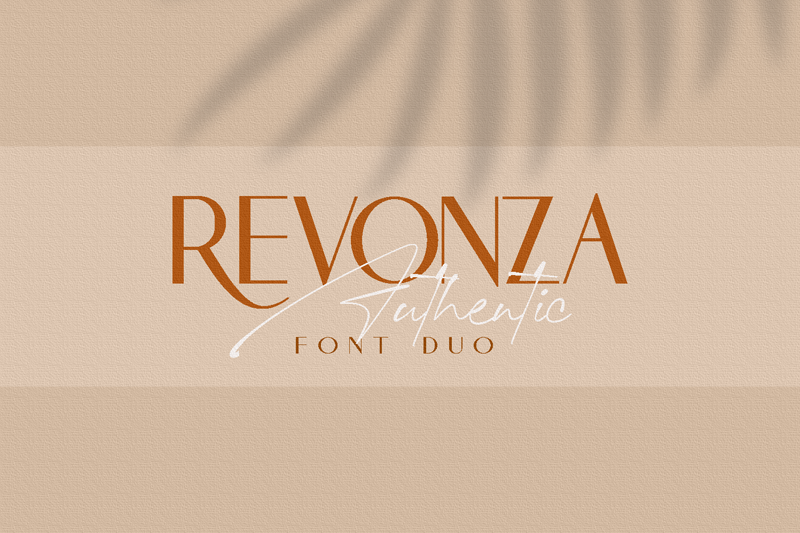
Preview and download Revonza Font. Created by XD Creative in Basic Sans serif styles with Free for personal use license.
Notes: This is free for personal use only, just Revonza Regular .ttf included, for full version and complete versions please visit link https://fontbundles.net/xdcreative/937584-revonza-sans-font-duo Revonza Authentic is a spectacular duo font (sans serif and script). Incredibly powerful and beautiful, this font fits a wide pool of designs, elevating them to the highest levels. Add this font to your favorite creative ideas and notice how it makes them come alive! REVONZA includes a complete characters ( Uppercase, lowercase, numeral, punctuation and alternates). ___________________________________________________________ You will receive 3 font file : REVONZA Regular Sans - high contrast sans font containing uppercase, lowercase characters, numerals, punctuation and alternates. Creates a perfect pairing contrast with REVONZA Script fonts REVONZA Sans Italic - high contrast sans font containing uppercase, lowercase characters, numerals, punctuation and alternates. REVONZA Script - An elegant script font Contains upper & lowercase characters, numerals and a large range of punctuation ___________________________________________________________ Please don't hesitate to contact me if you have any question thank you _xdCreative |